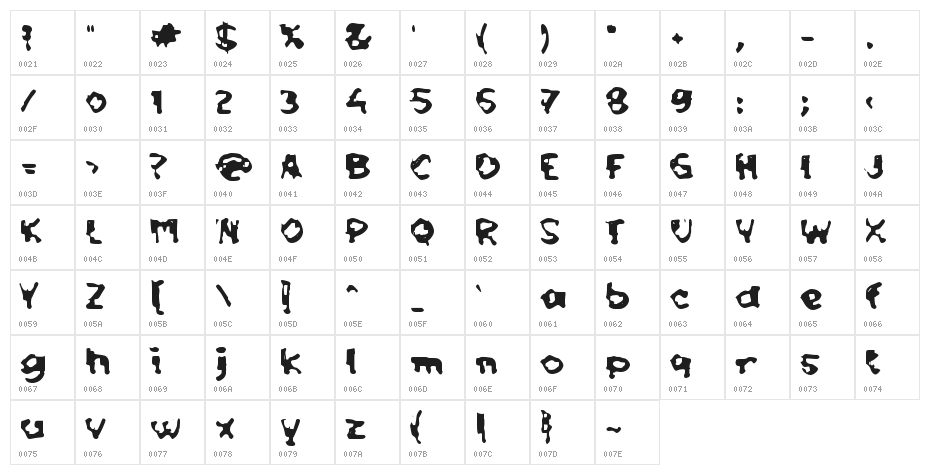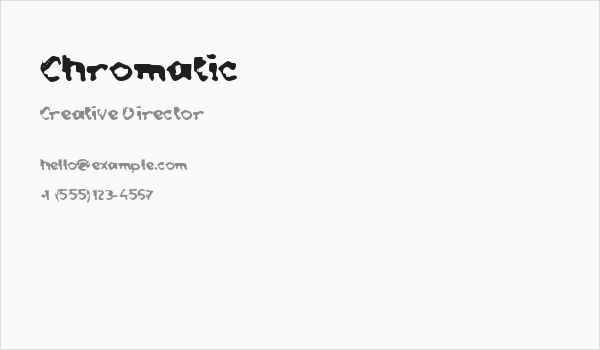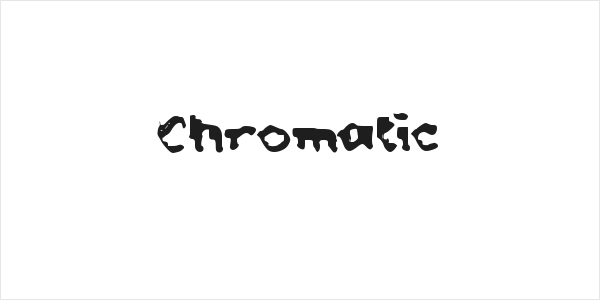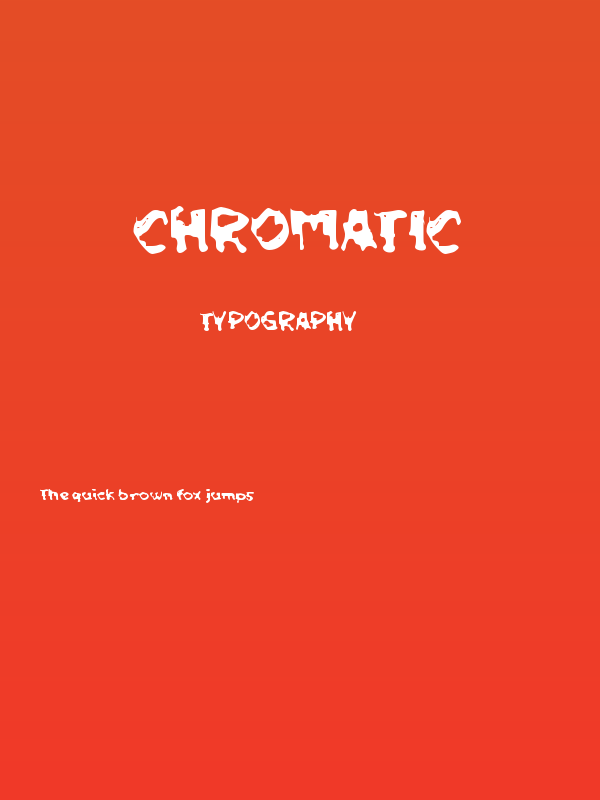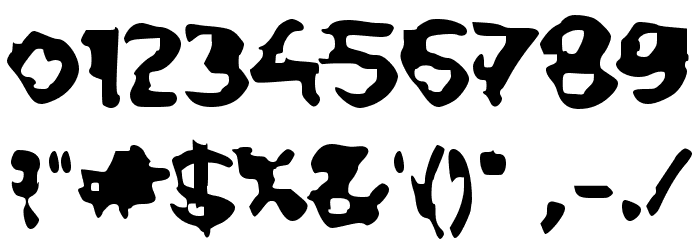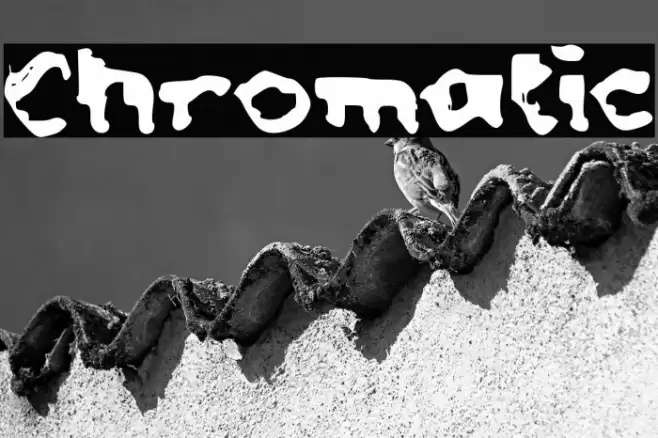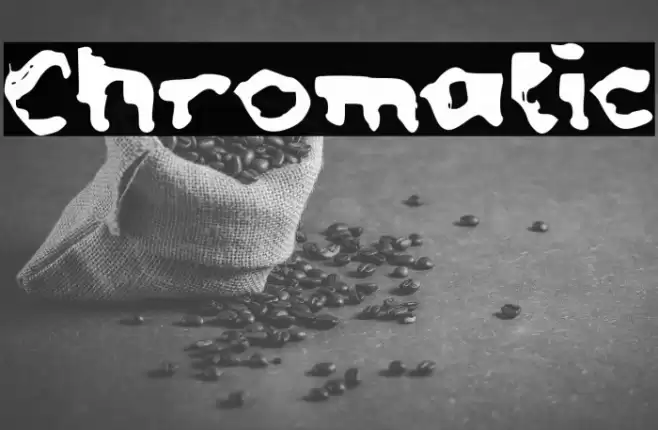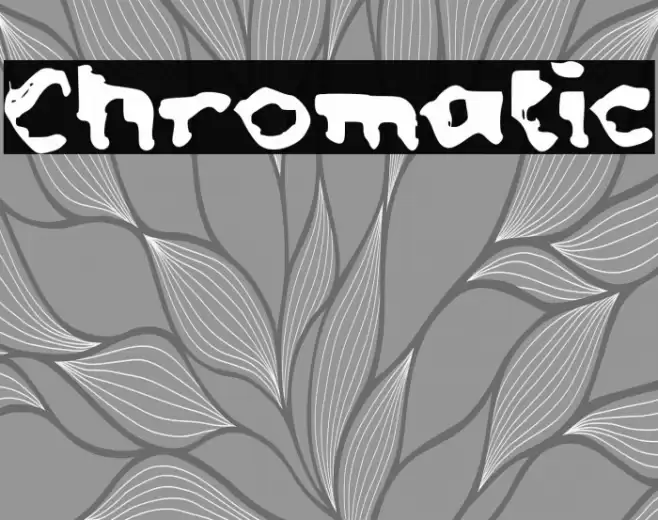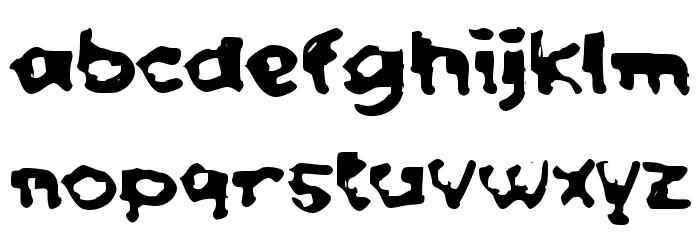
Chromatic Font
Chromatic Description
This font features a bold and highly decorative style with a unique, organic appearance. The characters have an irregular, fluid form that gives them a dynamic and artistic look. The strokes are thick and uneven, creating a sense of movement and energy. The font's playful and unconventional design makes it stand out, with each letter appearing as if it has been hand-drawn with a brush or marker. The overall aesthetic is both modern and artistic, suitable for creative projects that require a distinctive and eye-catching typeface.
| Overall Style | Modern, Artistic |
| Proposed Projects | Ideal for posters, album covers, artistic branding, and creative advertising campaigns. |